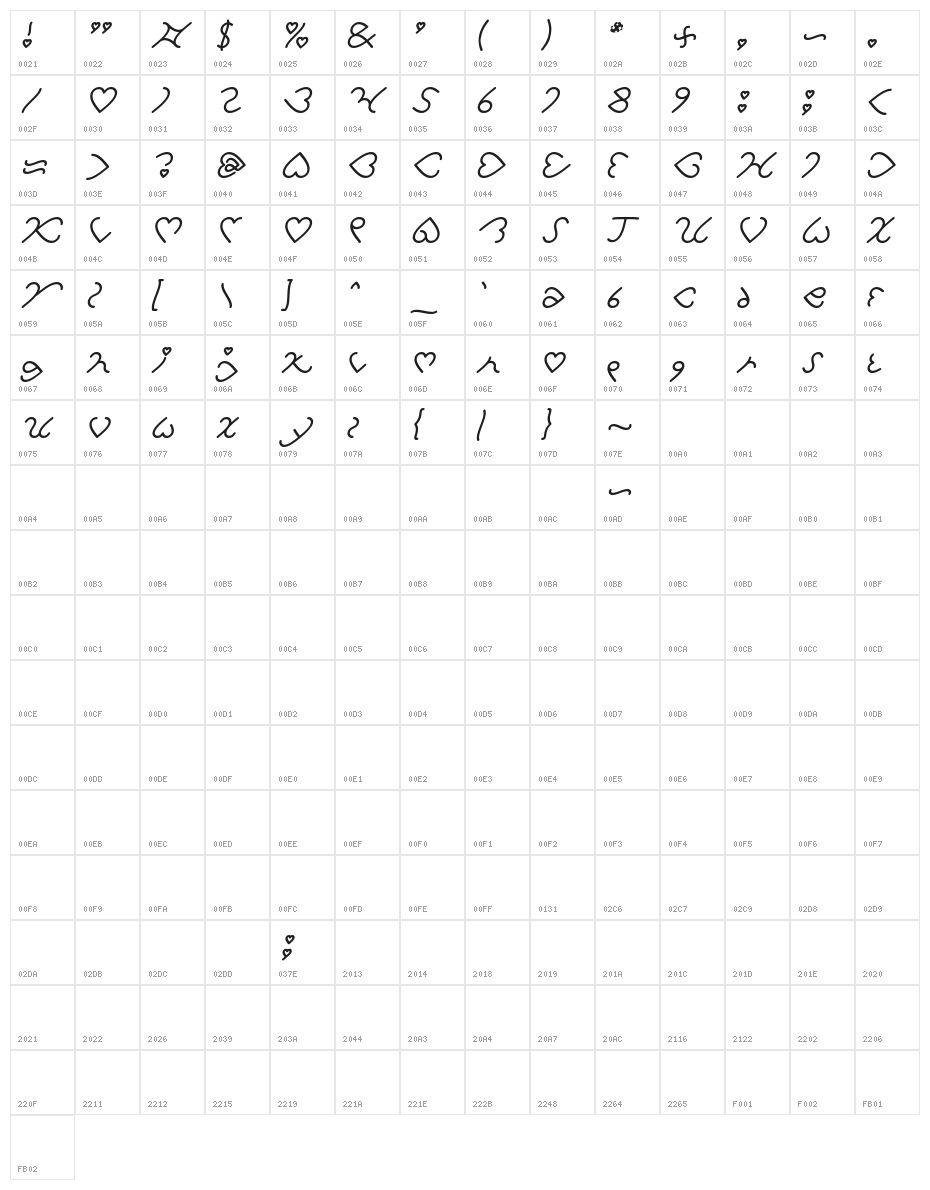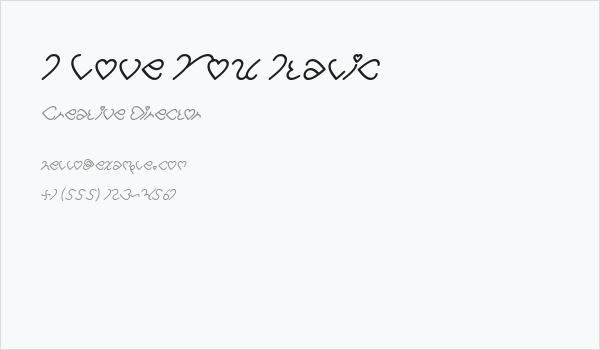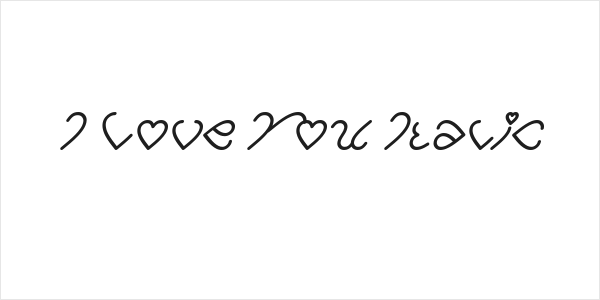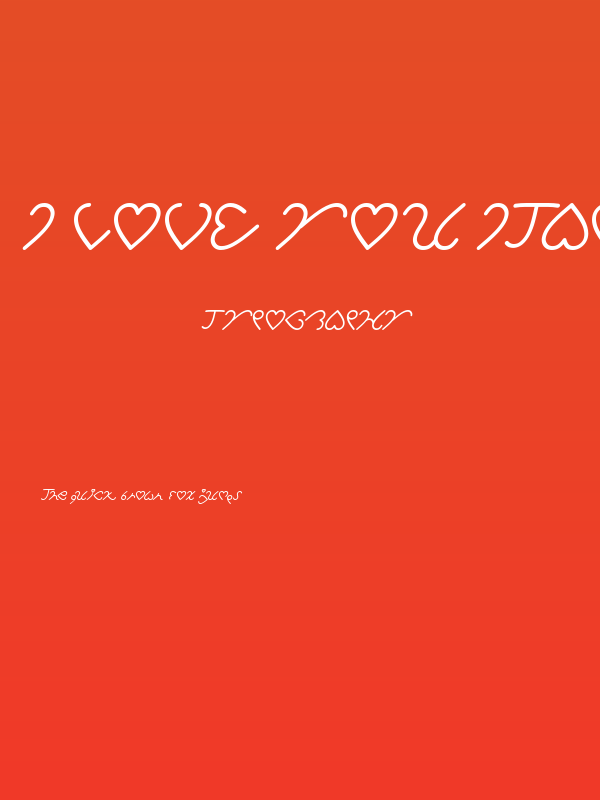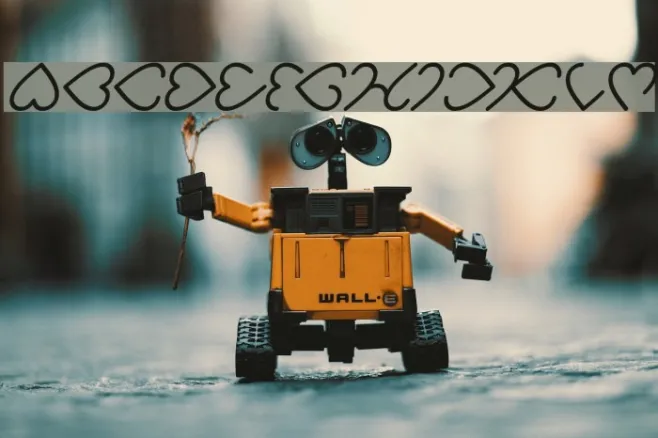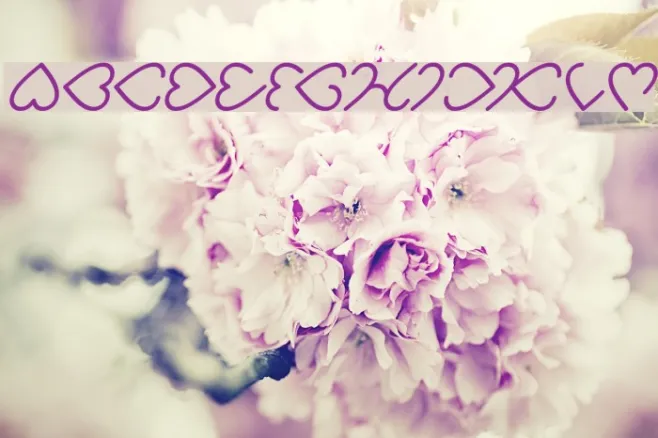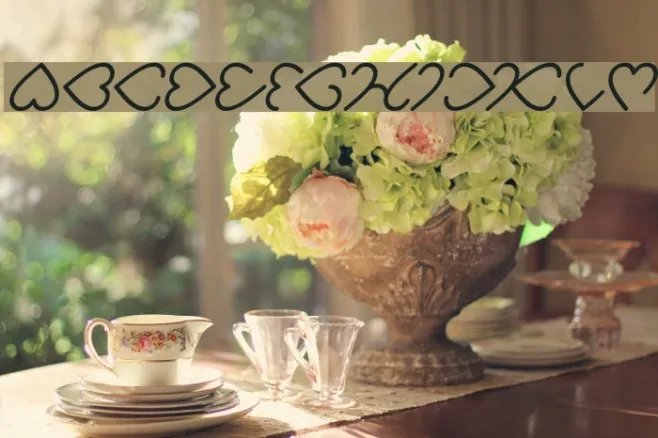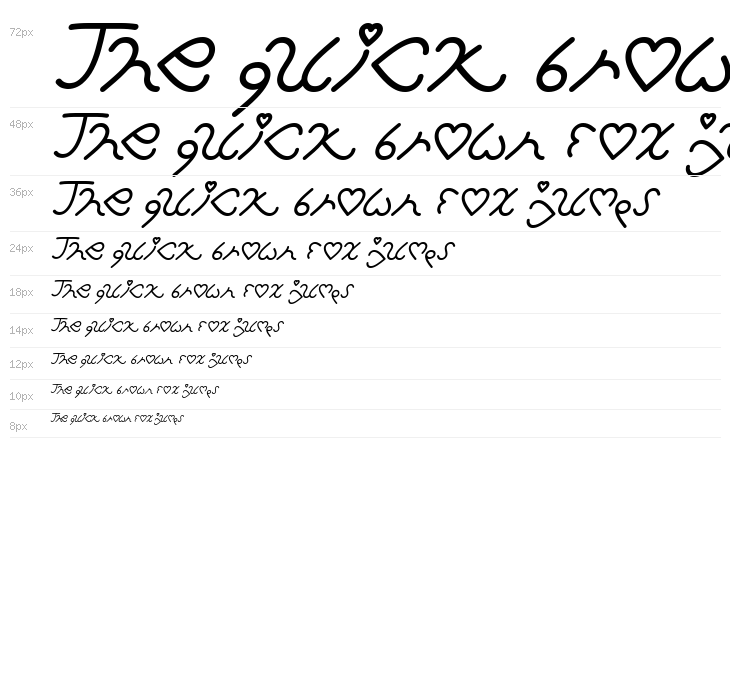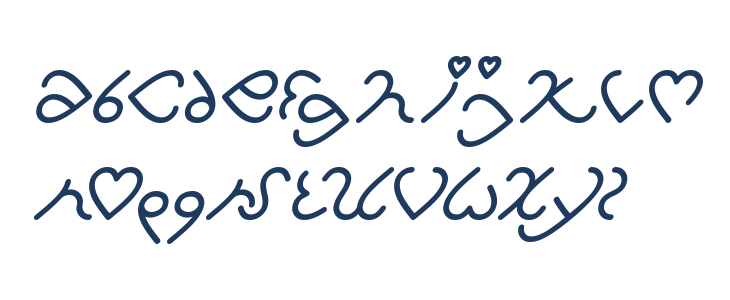
I Love You Italic Font
I Love You Italic Description
This playful and romantic font features a unique design where each character is infused with heart motifs, creating a whimsical and affectionate appearance. The strokes are smooth and flowing, with a consistent medium weight that adds to its charm. The letters are slightly italicized, enhancing the sense of movement and elegance. The font maintains a balanced character spacing, ensuring readability while preserving its decorative style. The numbers and special characters are also adorned with heart elements, making it ideal for projects that require a touch of love and creativity.
| Overall Style | Romantic, Playful |
| Proposed Projects | Perfect for Valentine's Day cards, wedding invitations, romantic branding, and love-themed social media graphics. |